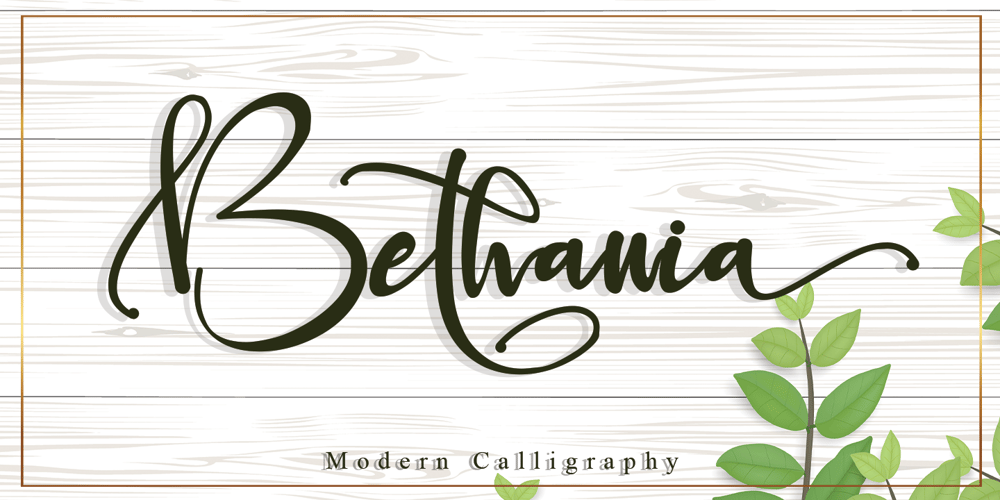
Bethania Font Family was designed by Stefani Tri Rosa Setiati Christiana and published by Stefani Letter. Bethania contains 2 styles and family package options. Bethania is a modern and cute handwritten font. Fall in love with its authentic feel and use it to create stunning art, beautiful stationary art, eye-catching social media posts, and cute greeting cards. This font is PUA encoded which means you can access all of the Bethania glyphs and swashes with ease! It also features a wealth of special features including alternate glyphs and ligatures.